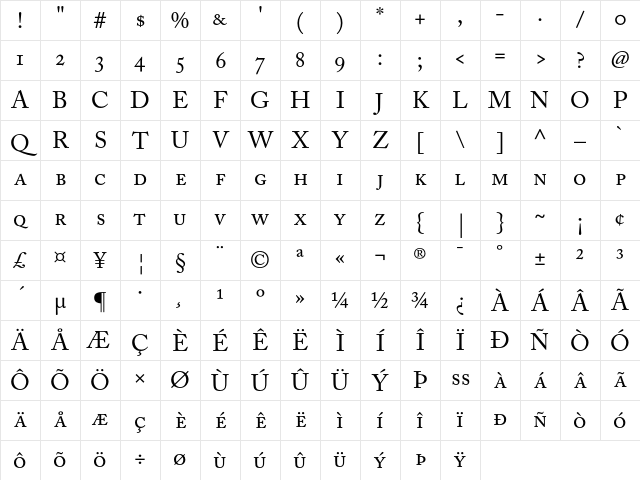
Adobe Caslon Regular Small Caps & Oldstyle Figures
Style: Regular Small Caps & Oldstyle Figures
Complete Adobe Caslon Regular Small Caps & Oldstyle Figures glyph index. Displaying only characters natively supported by Adobe Caslon Regular Small Caps & Oldstyle Figures font.
Design Context for Adobe Caslon
Adobe Caslon carries the refined structure of traditional serif typography, with bracketed terminals and considered proportions that communicate credibility and craft.
Pro Tip: Use Adobe Caslon for editorial body copy and considered headline work. Pair with a neutral sans for UI elements or captions to create a classic hierarchy.